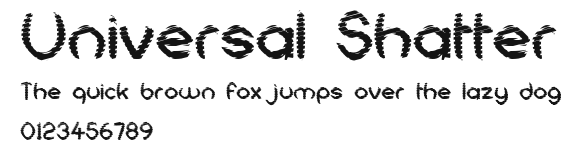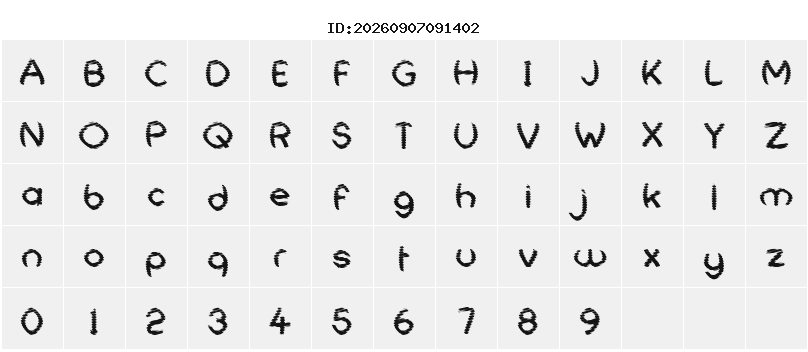
About Universal Shatter.ttf
Universal Shatter.ttf is a modern, elegant sans-serif font designed for ultimate readability and visual harmony. Perfect for branding, headlines, web design, and print materials.